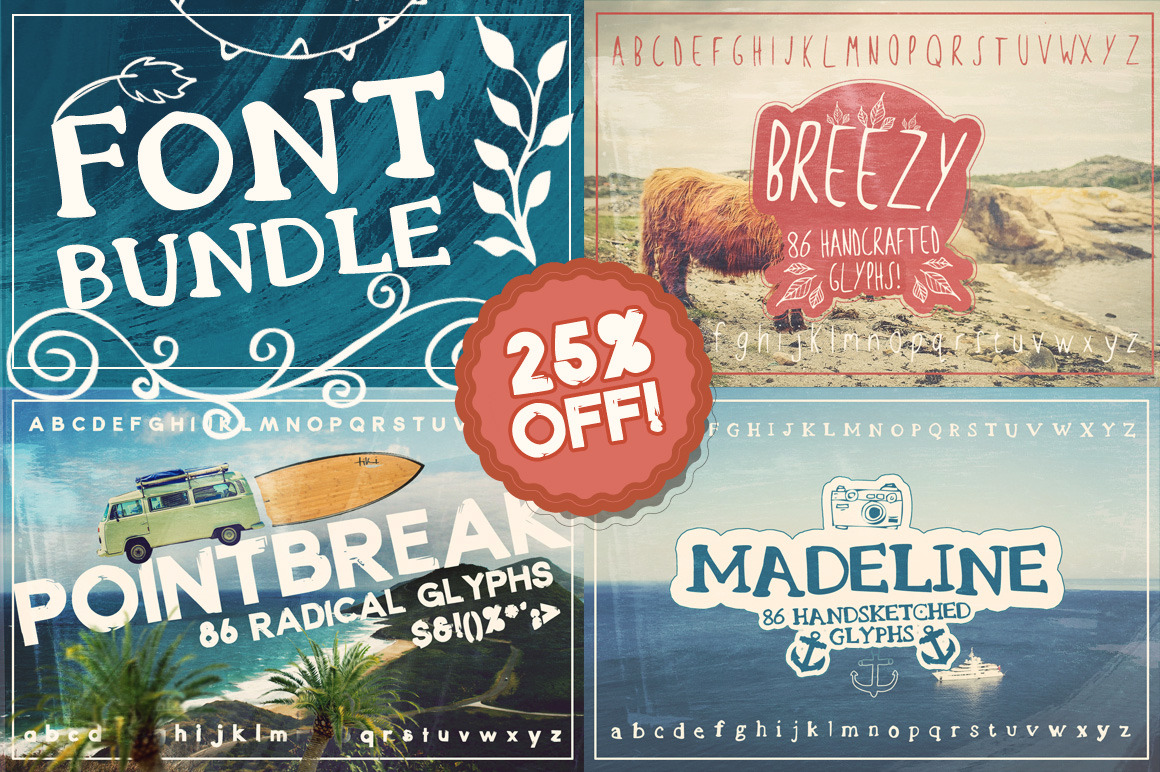
Layerform Font Bundle - 25% OFF!
Introducing the first Font Bundle from Layerform.com. This is as Juicy as they come, with 3 delicious fonts to choose from. There are two handsketched fonts and a beautiful distressed sans serif font in this bundle, at the bargain price of $18, 25% OFF!